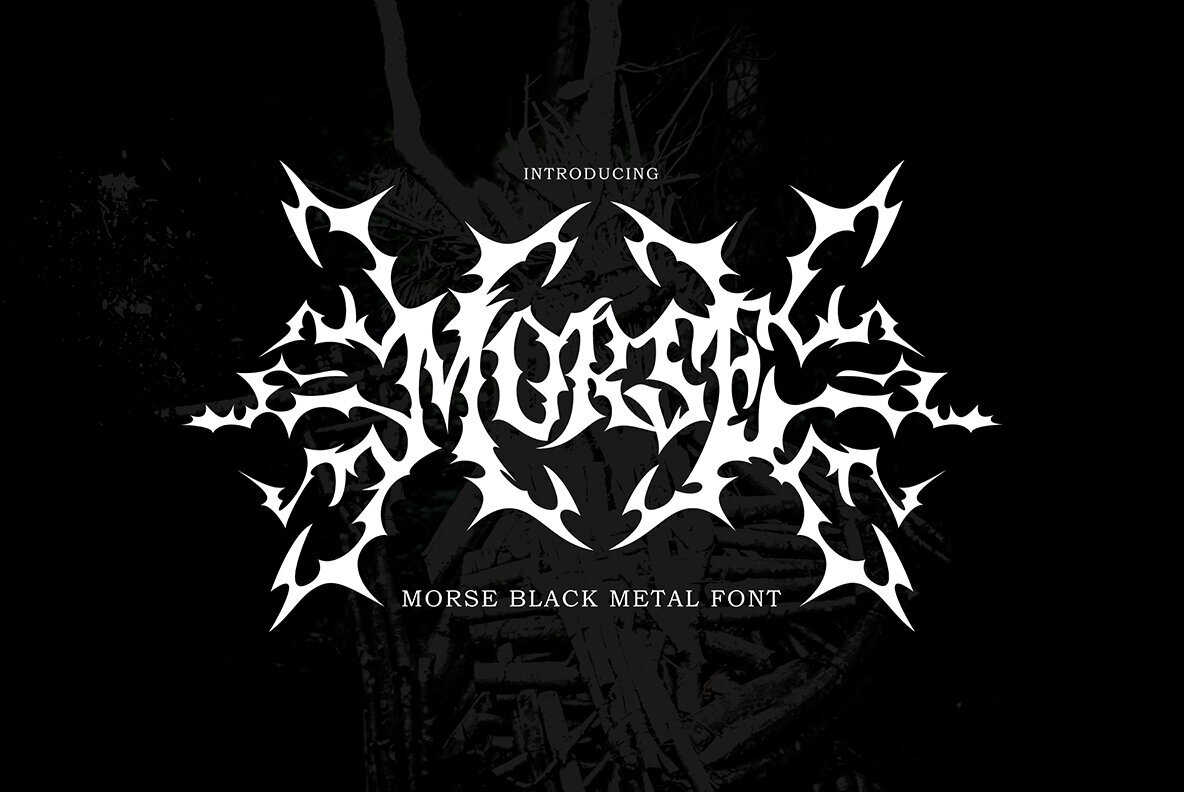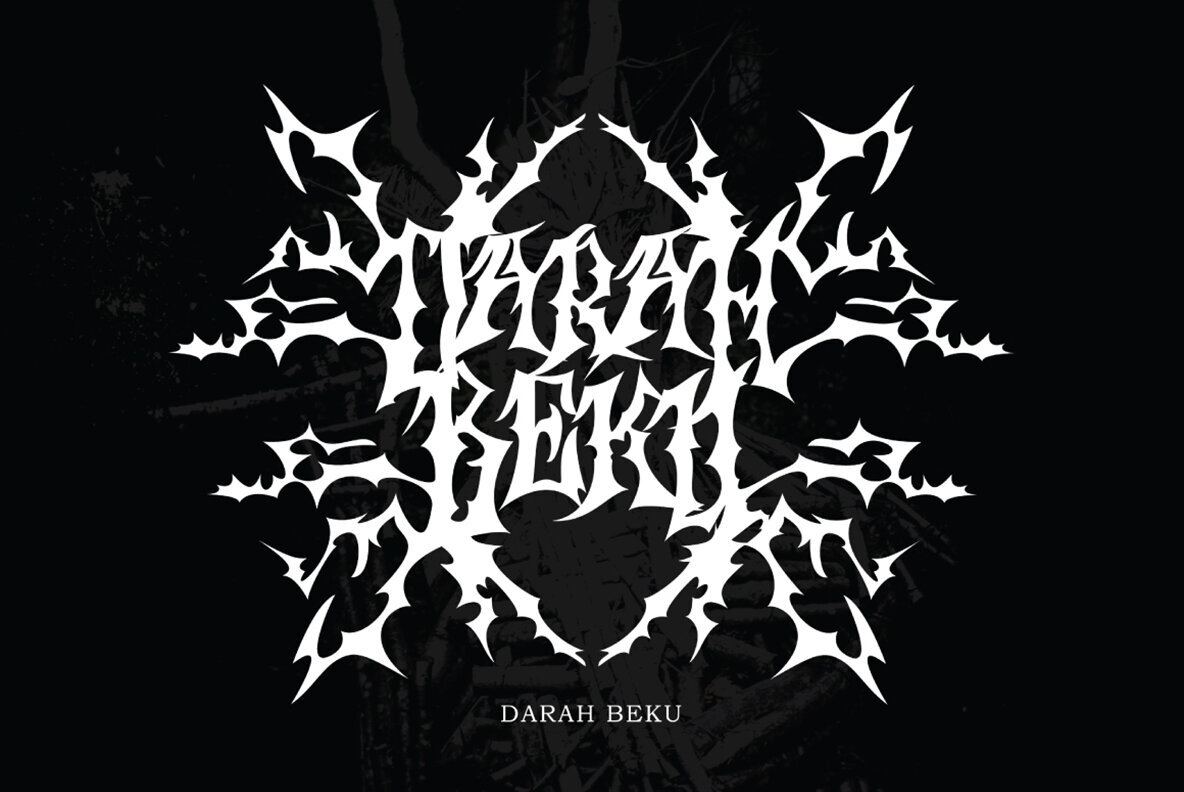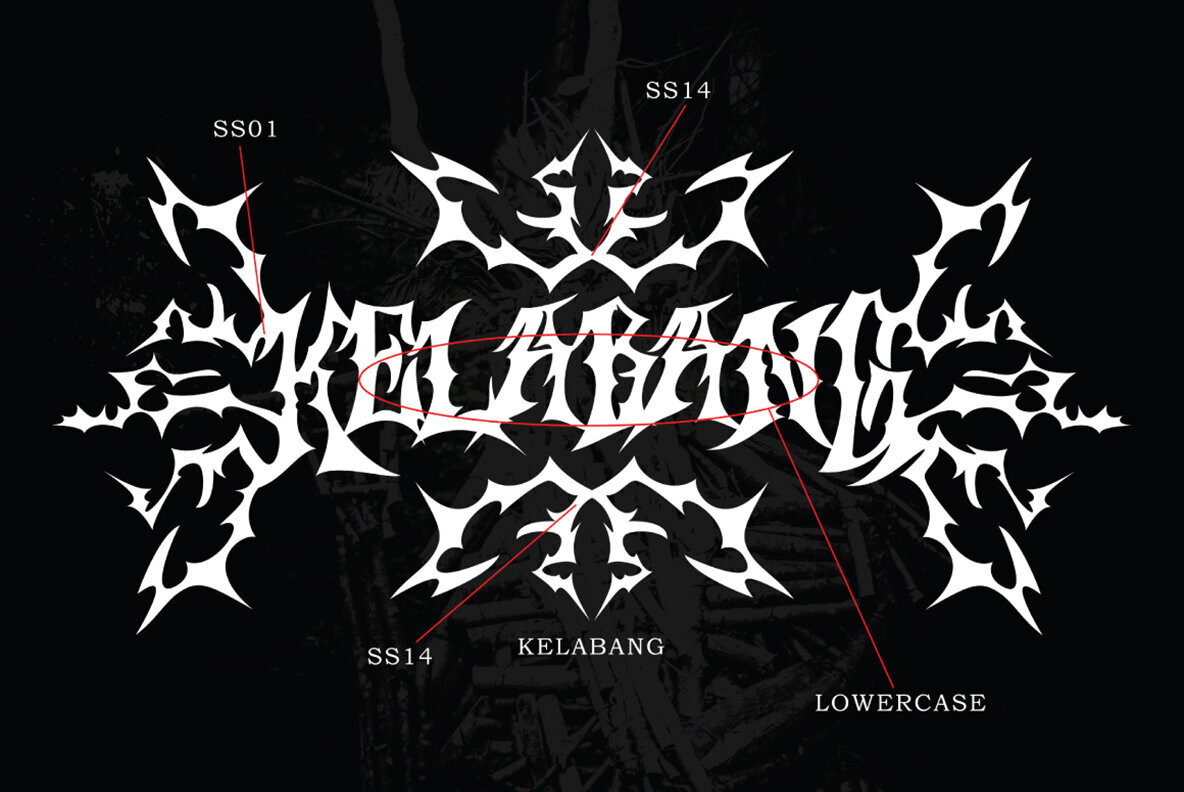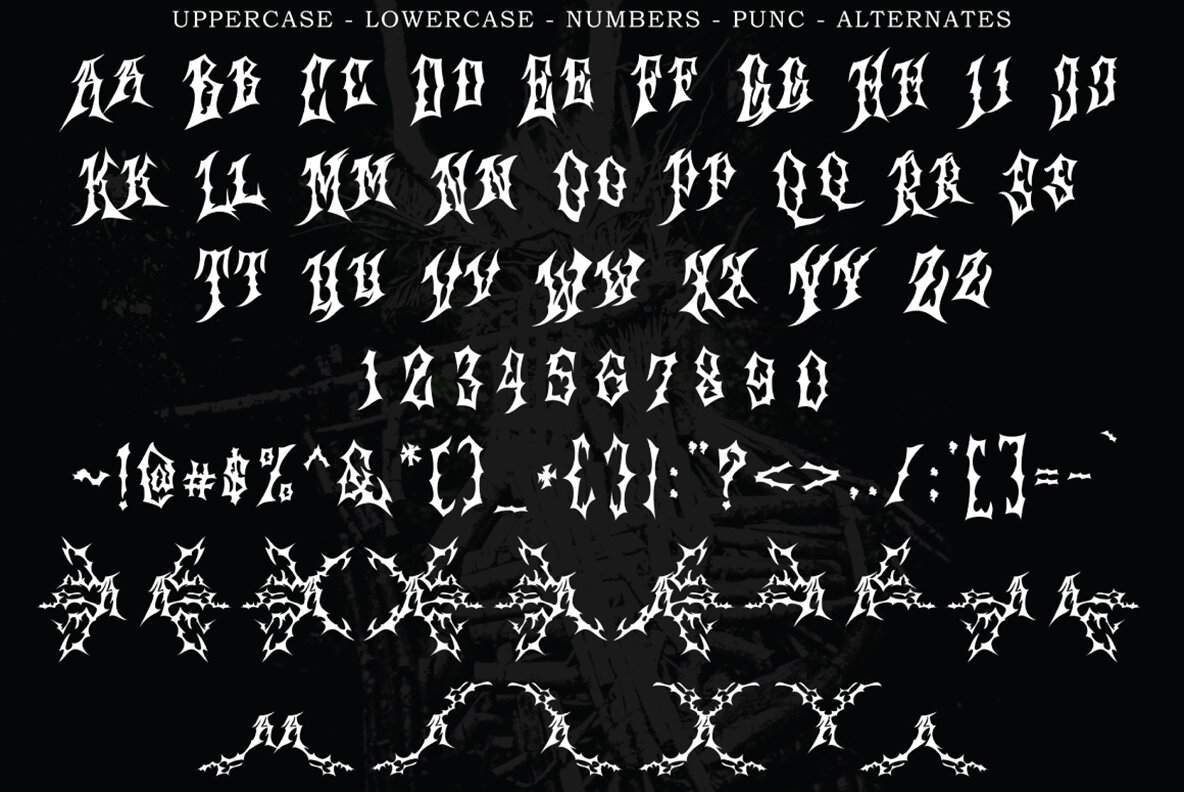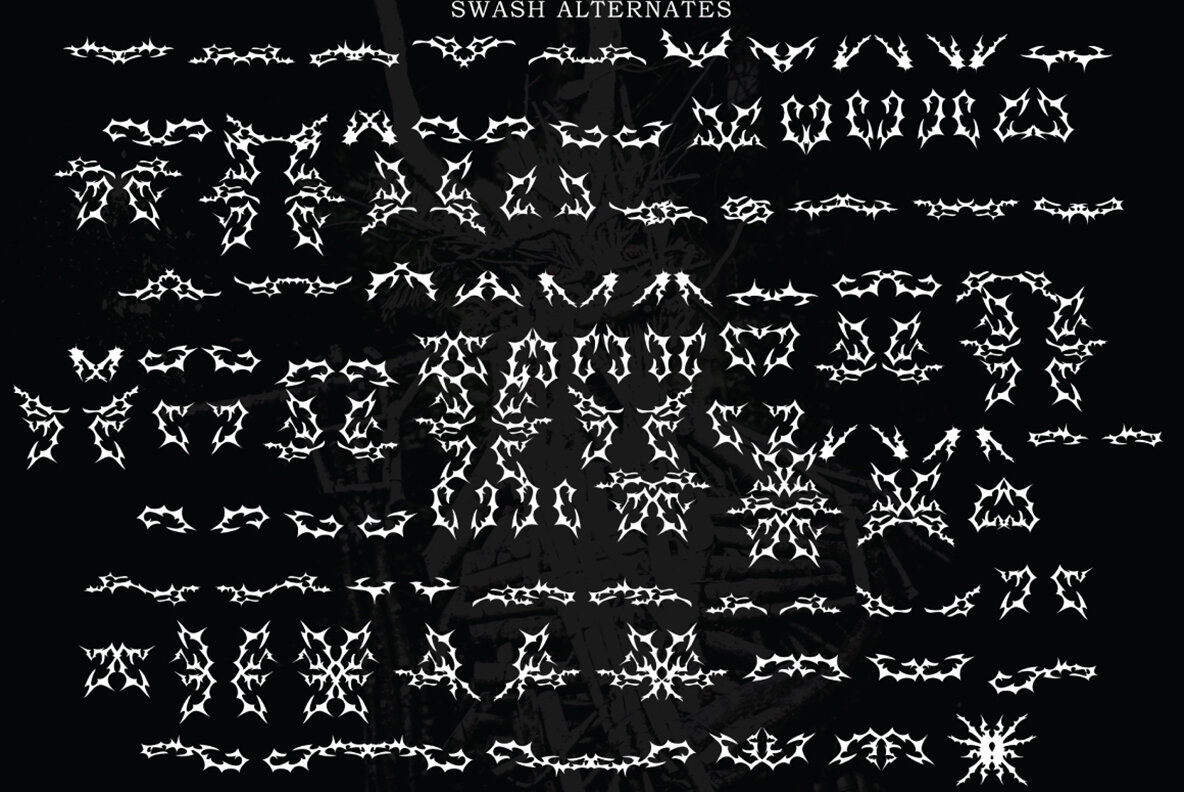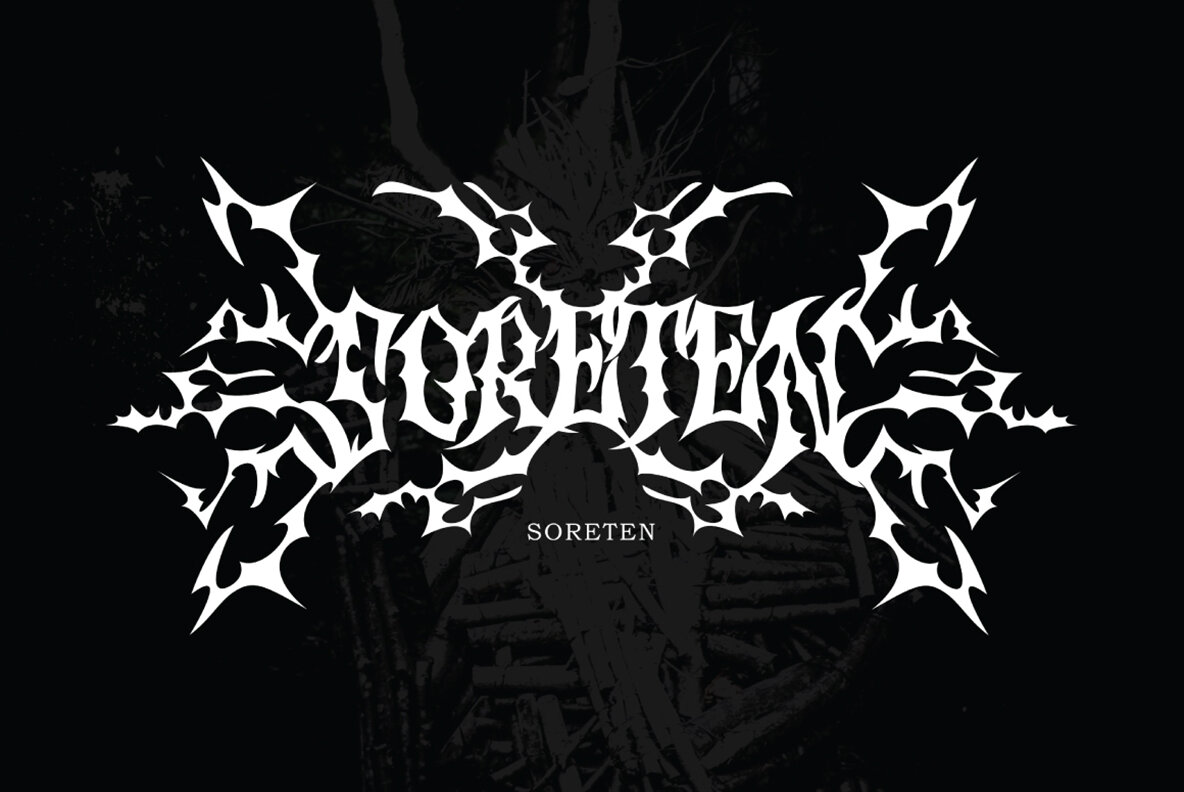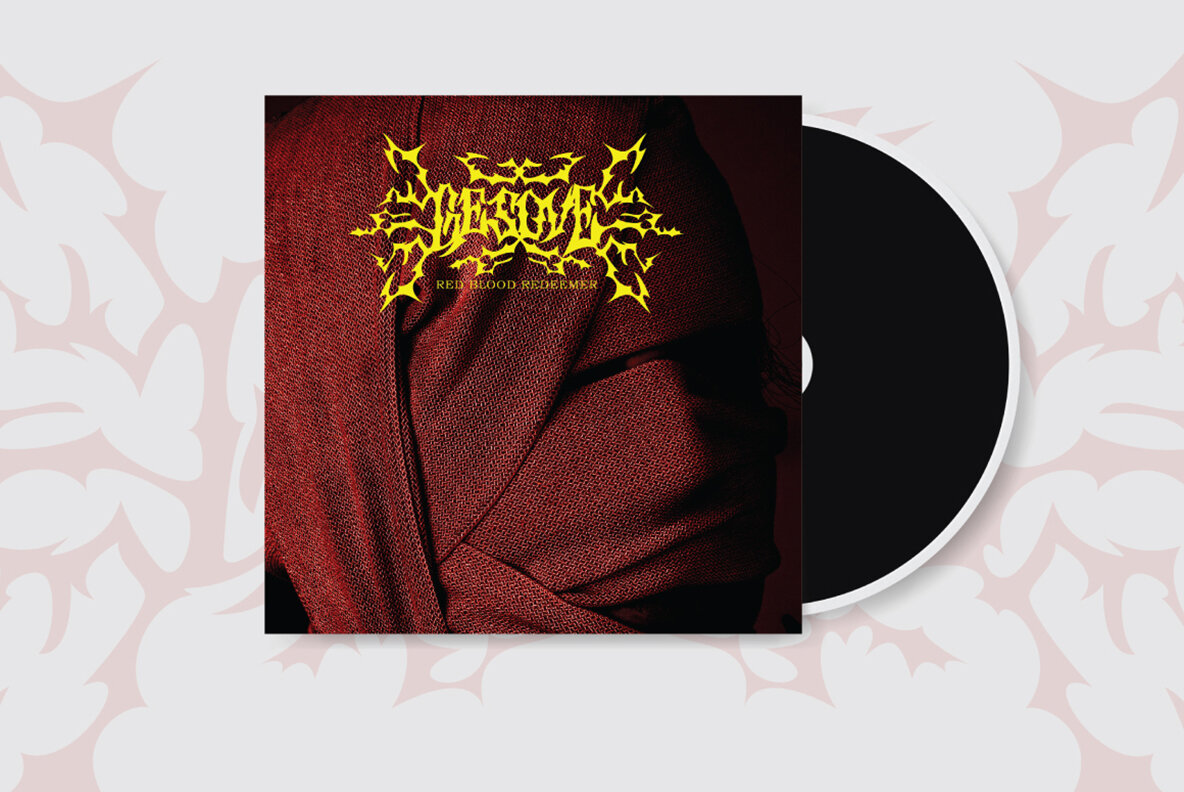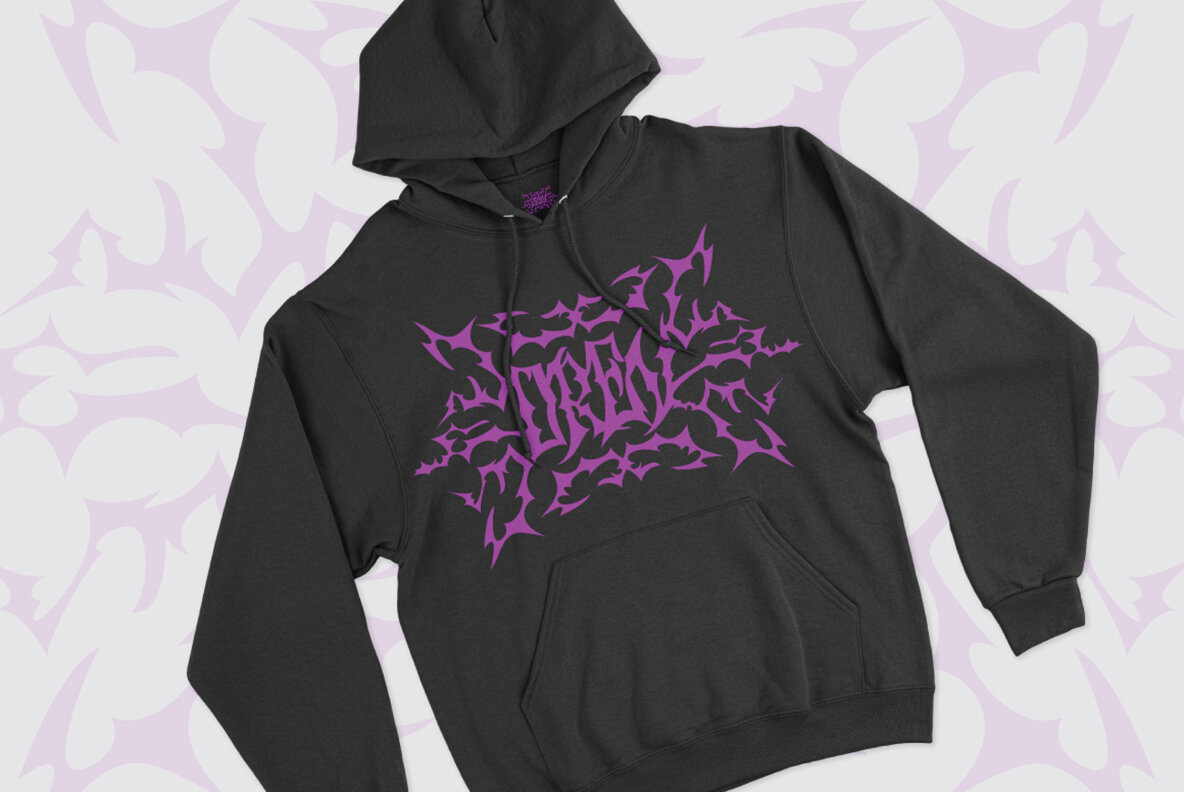
Morse Black Metal Font
Morse Black Metal Regular
Morse Black Metal offers a distinctive edge perfect for crafting logos for your underground band or any other creative project. Its unique style is perfect for artistic endeavors within the extreme music scene, providing an authentic metal vibe with its alternate front and ending letters that truly bring the font to life.
This font includes a comprehensive character set, enhanced with a curated collection of symbols and signs often associated with Death and Black Metal genres. Key features include pentagram drops, roots, spikes, and more, lending itself well to the visual language of the metal scene.
Morse Black Metal is equipped with all caps, numbers, punctuation, alternate characters, symbol ornaments, and is PUA encoded for compatibility across platforms. It's an exceptional choice for those looking to incorporate thematic and genre-specific elements into their design work.